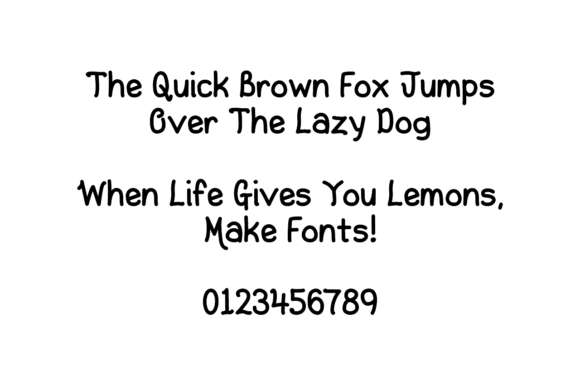
A Very Cartoon Christmas Font: Spreading Holiday Cheer in Your Designs
It’s the most wonderful time of the year! As designers and crafters, we’re always on the lookout for unique and festive elements to add to our holiday projects. That’s where A Very Cartoon Christmas Font comes in – a delightful handwritten cartoon font that’s sure to evoke the childish wonder of Christmas.
What is A Very Cartoon Christmas Font?
A Very Cartoon Christmas Font is a carefully crafted, handwritten font designed to capture the magic and excitement of the holiday season. Its playful, cartoon-inspired aesthetic makes it perfect for use in winter advertisements, designs, and projects that require a touch of festive fun.
Key Features of A Very Cartoon Christmas Font
- Handwritten and playful: This font boasts a charming, handwritten quality that’s sure to bring a smile to your audience’s faces.
- Cartoon-inspired: The font’s cartoon aesthetic makes it perfect for designs that require a touch of whimsy and fun.
- Festive and seasonal: A Very Cartoon Christmas Font is specifically designed for the holiday season, making it an excellent choice for winter-themed projects.
- Versatile: This font can be used in a variety of design applications, from digital to print.
Why Use A Very Cartoon Christmas Font?
As a designer or crafter, you’re likely always on the lookout for unique and engaging elements to add to your projects. A Very Cartoon Christmas Font offers several benefits, including:
- Instant holiday cheer: This font is sure to evoke the magic and excitement of the holiday season, making it perfect for winter-themed designs.
- Stand out from the crowd: With its playful, cartoon-inspired aesthetic, A Very Cartoon Christmas Font is sure to help your designs stand out from the crowd.
- Easily legible: Despite its playful nature, this font remains easily legible, making it perfect for use in a variety of design applications.
How to Use A Very Cartoon Christmas Font
Using A Very Cartoon Christmas Font is easy! Here are a few ideas to get you started:
- Winter advertisements: Add a touch of festive fun to your winter advertisements with this delightful font.
- Holiday cards and invitations: Use A Very Cartoon Christmas Font to create festive and engaging holiday cards and invitations.
- Crafting projects: Add a touch of whimsy to your crafting projects, such as handmade cards, gift tags, and decorations.
- Digital designs: Use this font in your digital designs, such as social media graphics, blog posts, and email newsletters.
Tips and Tricks for Working with A Very Cartoon Christmas Font
Here are a few tips and tricks to help you get the most out of A Very Cartoon Christmas Font:
- Experiment with colors: Try pairing this font with a variety of festive colors, such as red, green, and gold.
- Play with textures: Add depth and interest to your designs by pairing this font with different textures, such as glitter or snowflakes.
- Mix and match with other fonts: Try pairing A Very Cartoon Christmas Font with other fonts to create a unique and engaging visual style.
| Font Name | A Very Cartoon Christmas Font |
| Author | Chequered Ink |
A Very Cartoon Christmas Font is a delightful and festive addition to any designer’s toolkit. With its playful, cartoon-inspired aesthetic and easily legible design, this font is perfect for use in winter advertisements, designs, and projects. Whether you’re a designer, crafter, or simply someone who loves the holiday season, A Very Cartoon Christmas Font is sure to bring a touch of holiday cheer to your projects.